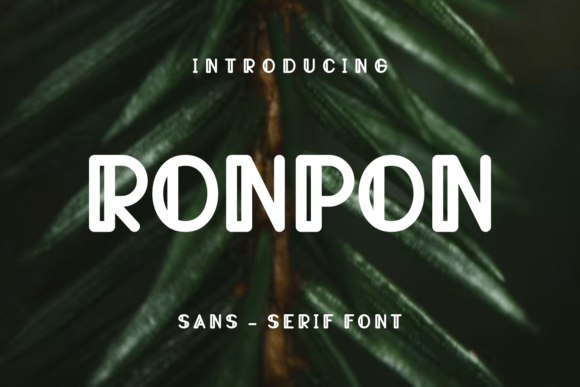
Behold Ronpon, a peerless and captivating display font poised to revolutionize your design endeavors. Its meticulously crafted characters, brimming with intricate details, will effortlessly elevate your creations to new heights of visual allure. Ronpon possesses an inherent versatility, seamlessly adapting to a myriad of projects, from striking logos and branding elements to captivating headlines and alluring invitations. Unleash your boundless creativity and explore the endless possibilities that await with this exceptional font.
Ronpon's inherent charm lies in its ability to effortlessly command attention. Its bold and distinctive presence ensures that your designs will leave an indelible mark on your audience. Whether crafting sleek and sophisticated brochures or creating eye-catching social media posts, Ronpon will elevate your designs to unprecedented levels of sophistication and impact.
Immerse yourself in the world of Ronpon and discover a font that resonates with your creative spirit. Its meticulously crafted details and captivating aura will ignite your imagination and inspire you to create stunning designs that captivate and enchant. Experience the transformative power of Ronpon and elevate your projects to new heights of visual excellence.